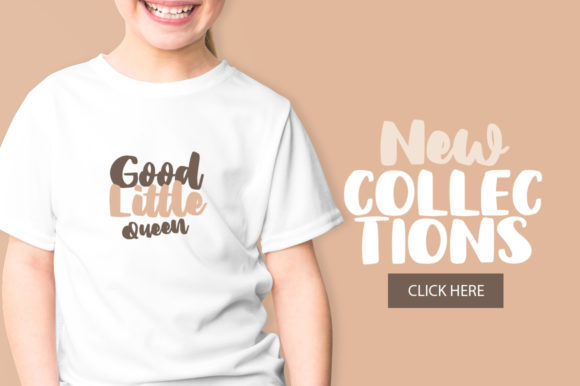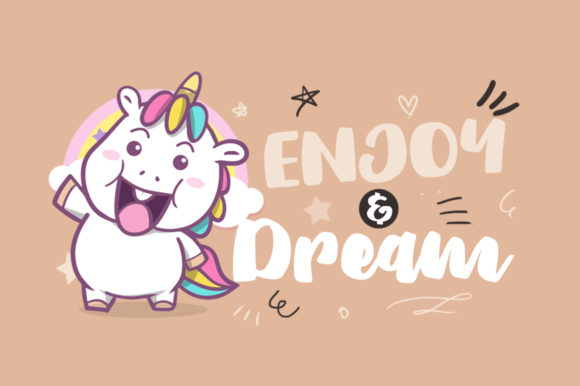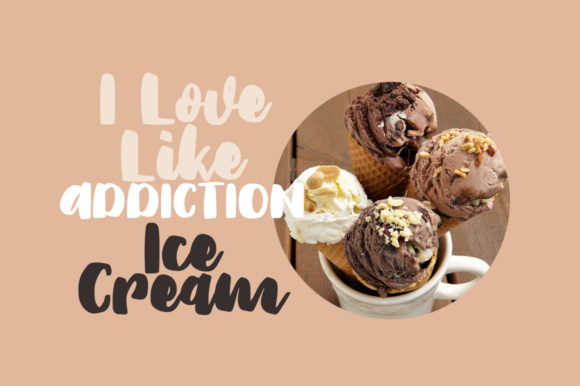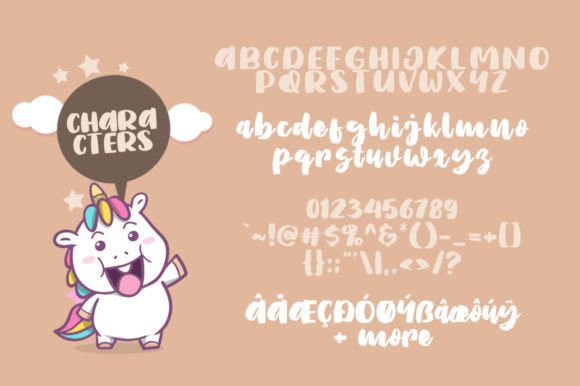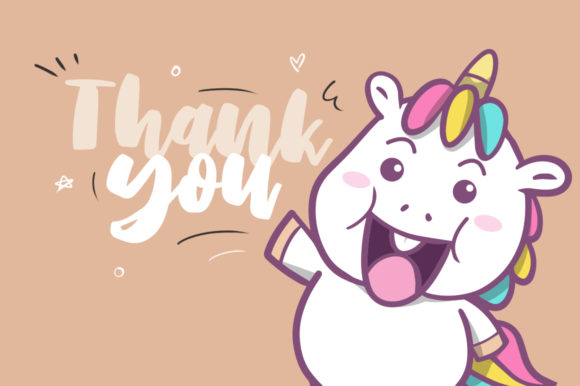
HomeScript FontsFat Unicorn Font Script Fonts Fat Unicorn Font FacebookXPinterestWhatsApp Fat Unicorn Font Poster 2 Fat Unicorn Font Poster 3 Fat Unicorn Font Poster 4 Fat Unicorn Font Poster 5 Fat Unicorn Font Poster 6 About Fat Unicorn Font Fat Unicorn is a unique bold font. It will make all your designs have a special touch! DOWNLOAD ON CREATIVE FABRICAThis font is sold and delivered by Creative Fabrica. Font Canyon may earn a commission if you buy through this link. People also explored Eagle Sight Stamp Font Christmas Star Font Sheilazain Font Dealova Font Love Betteria Font Autumn Chant Font Stuneman Font The Broadstone Font Happy Holiday Font 317 0 TagsFat Unicorn Font Previous articleArabella FontNext articleMetalia Font LEAVE A REPLY Cancel reply Comment: Please enter your comment! Name:* Please enter your name here Email:* You have entered an incorrect email address! Please enter your email address here Website: Save my name, email, and website in this browser for the next time I comment. Personal Use Free Gardening Personal Use Free Read more about this font Better Together Duo Personal Use Free Read more about this font Gupis Personal Use Free Read more about this font Deco Neue Wilde Personal Use Free Read more about this font BLOG Top 10 Handwritten Fonts That Elevate Your Designs Top 10 Handwritten Fonts That Will Elevate Your Designs Handwritten fonts bring a warm, personal touch to every creative project. Whether you're designing logos, invitations,... To increase your work productivity, choose the most readable fonts. The 10 Best Handwriting Fonts to Add Personality to Your Designs Best Fonts for T-Shirt Design – Top 2025 Picks